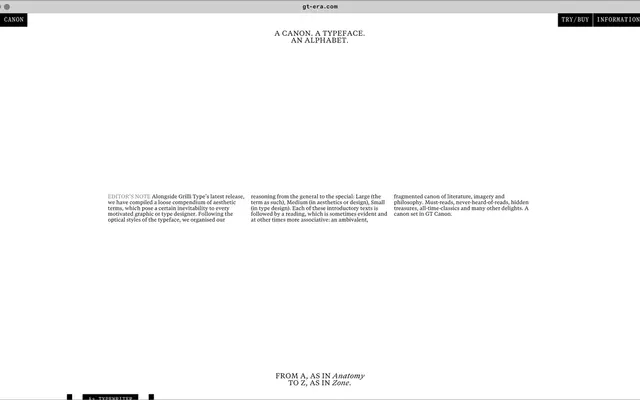
GT Canon
Grilli Type · 2024
A large serif system from Grilli with five widths and three optical sizes plus a matching Mono.
A serif system from Grilli Type that pairs five widths (Condensed through Expanded) with S, M and L optical sizes across seven weights and italics, alongside a Mono companion. Sample texts on the page talk about glyph outlines, hinting and how scale introduces qualitative change, hinting at Canon's bookwork ambitions across small-text and display use.
A large serif system built around five widths, three optical sizes (S, M, L) and a Mono companion, weighted from Light through Black with italics throughout.